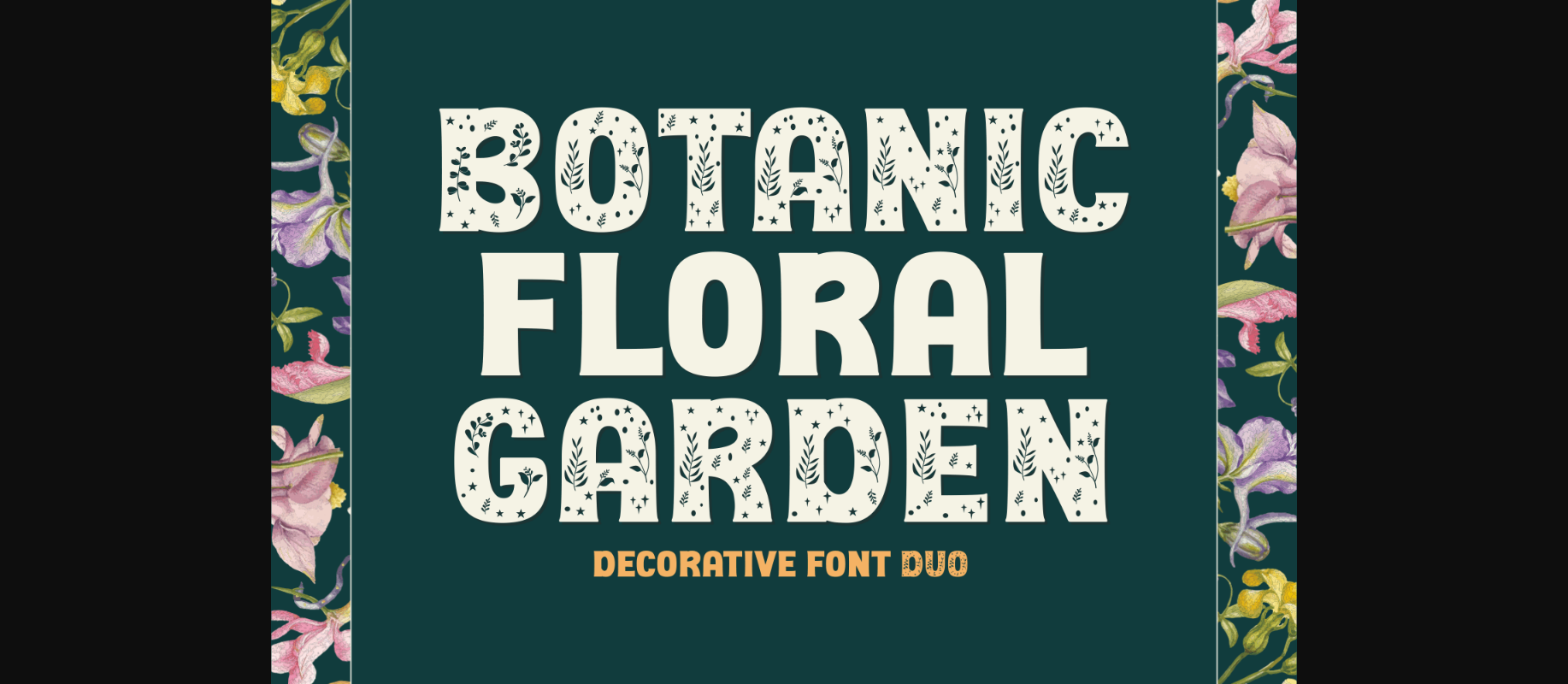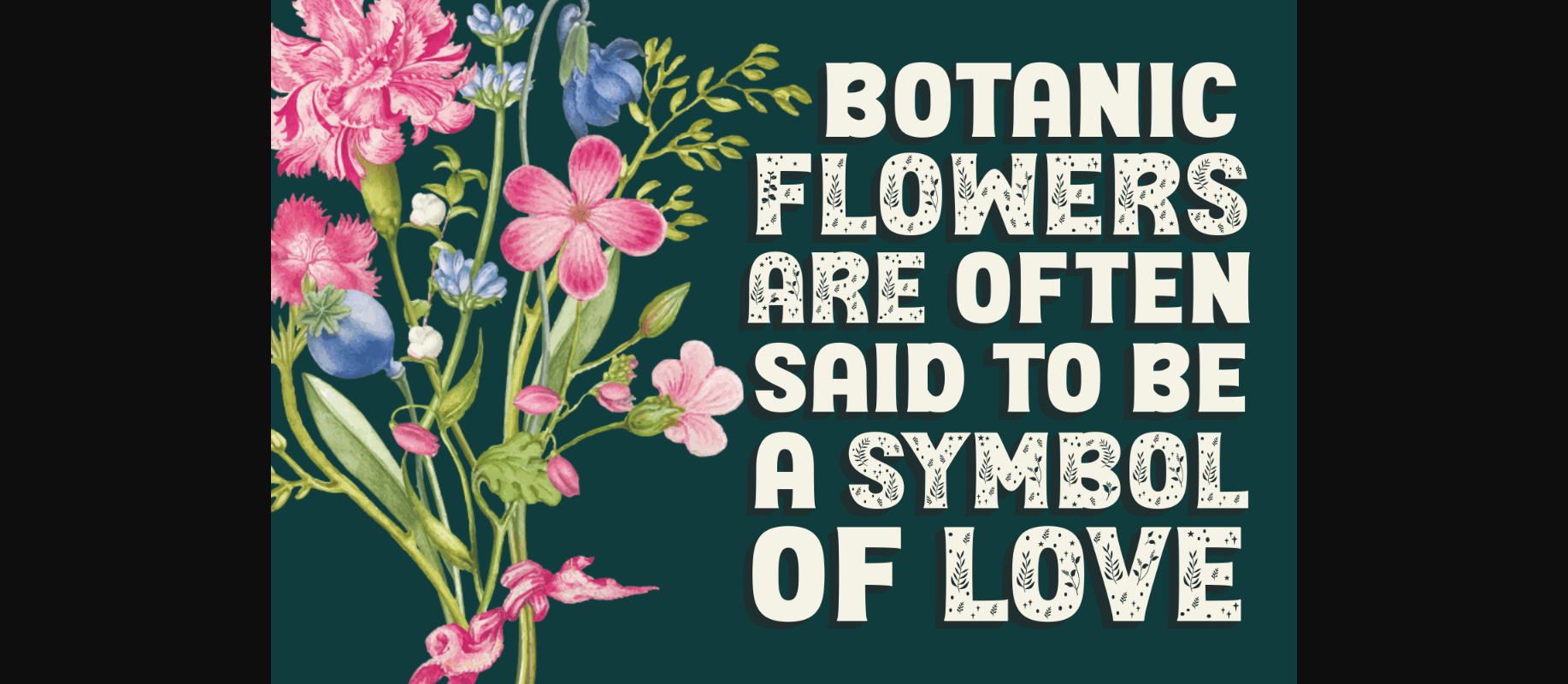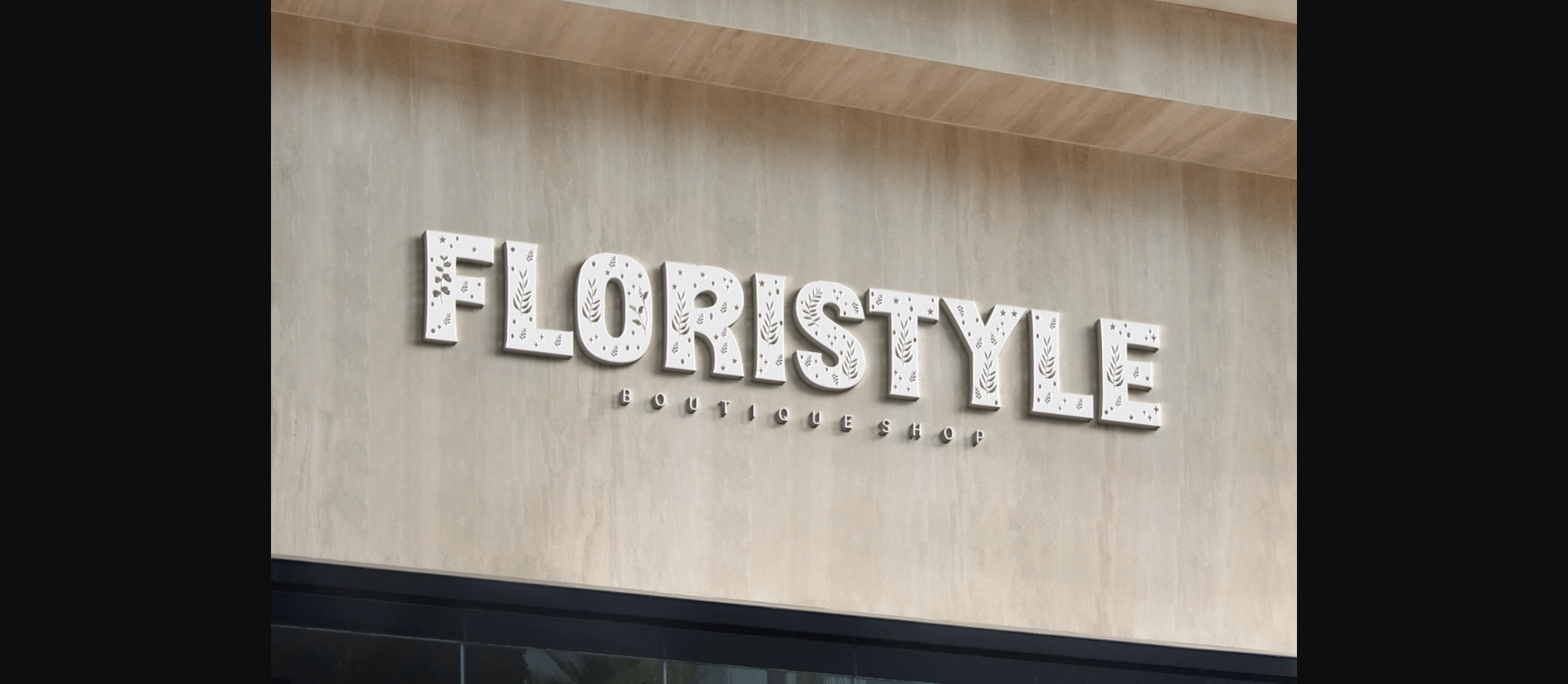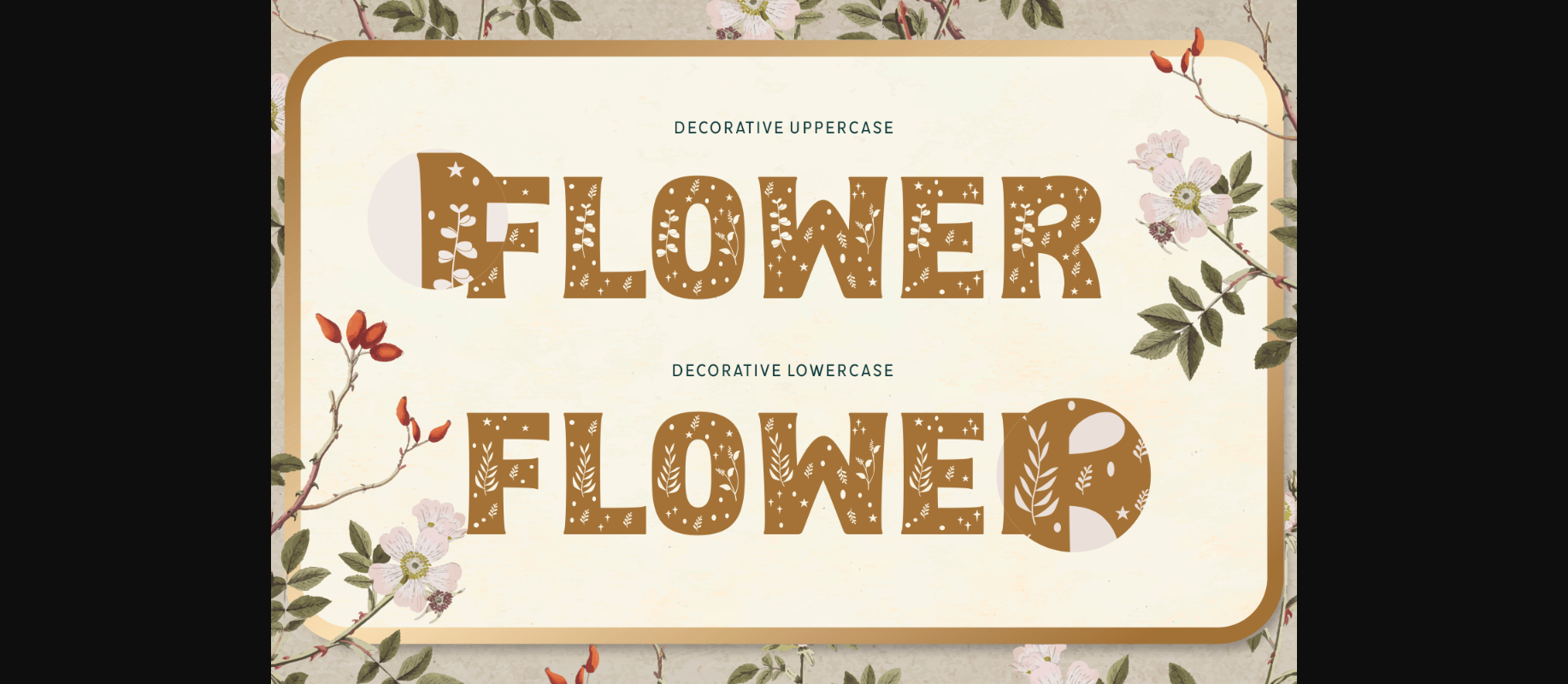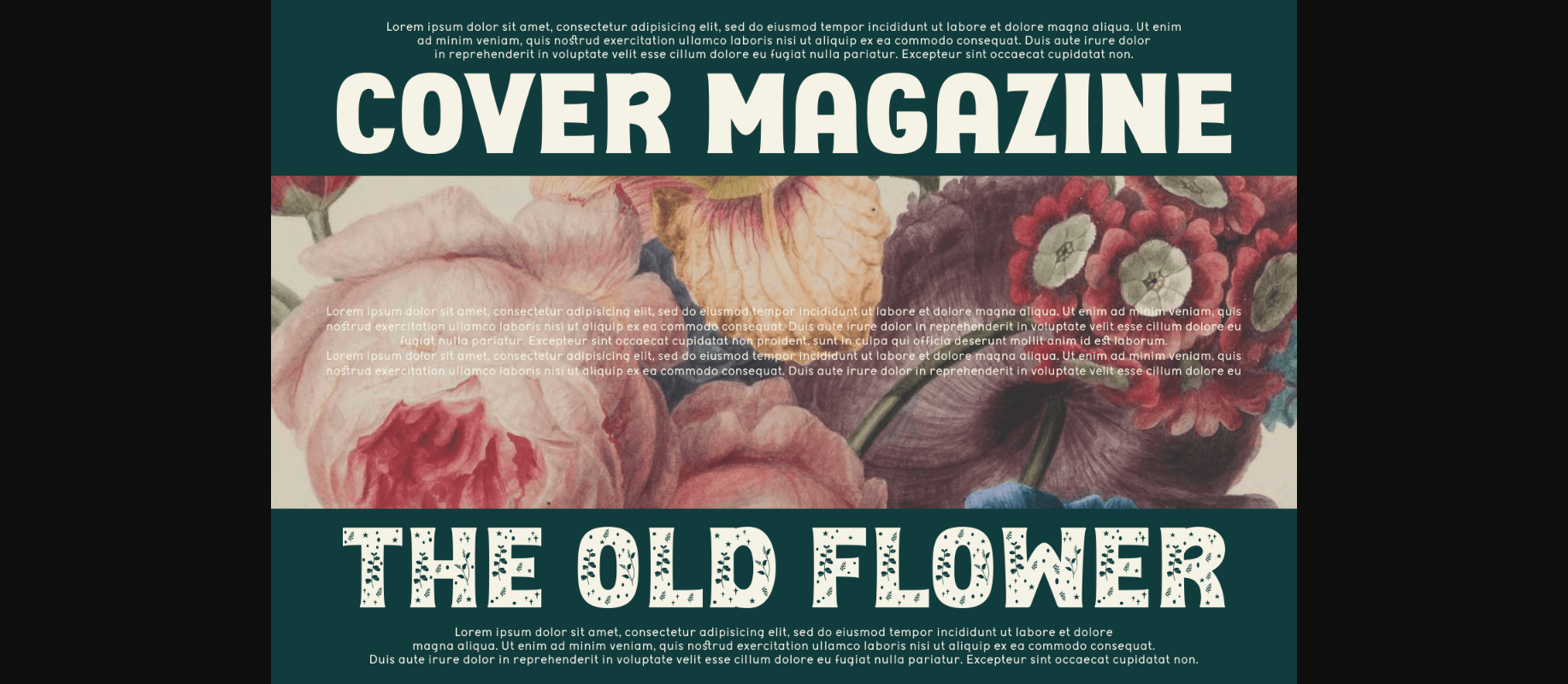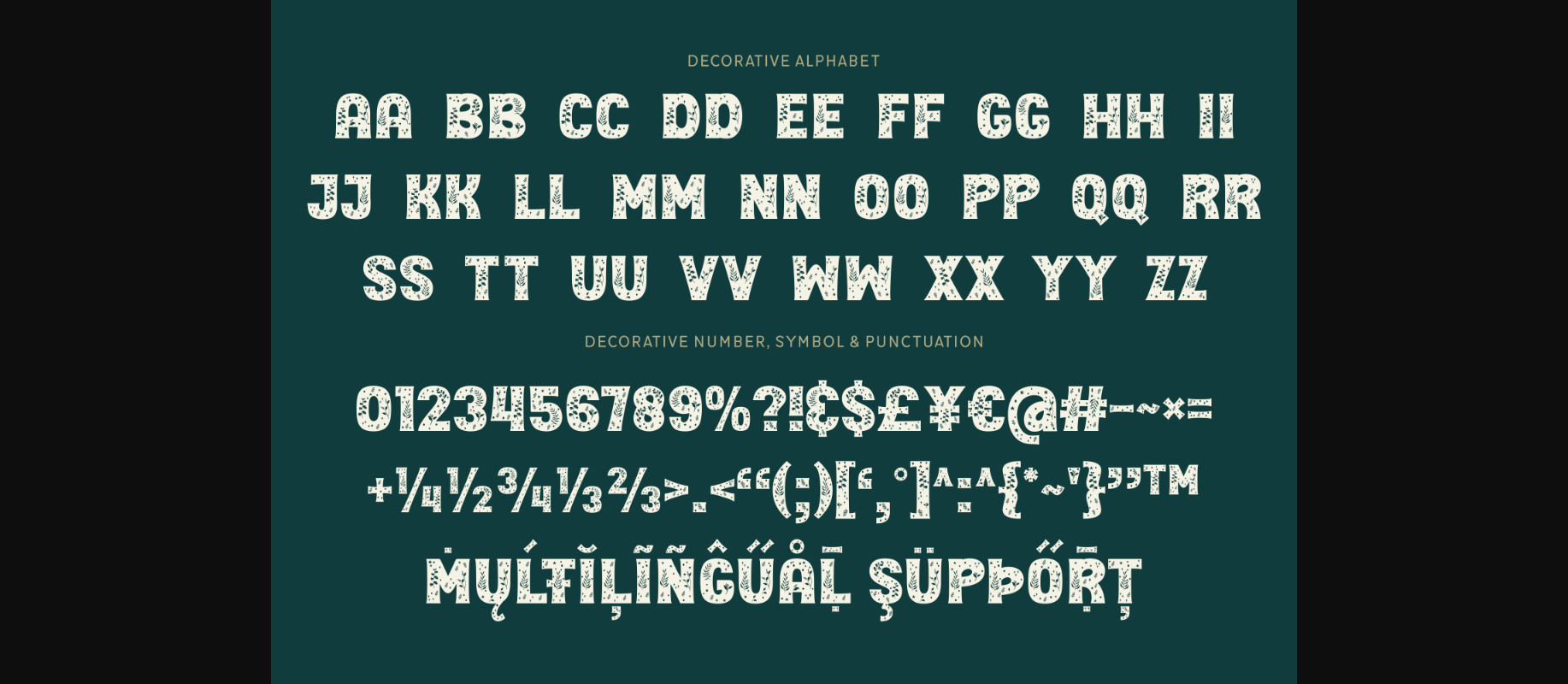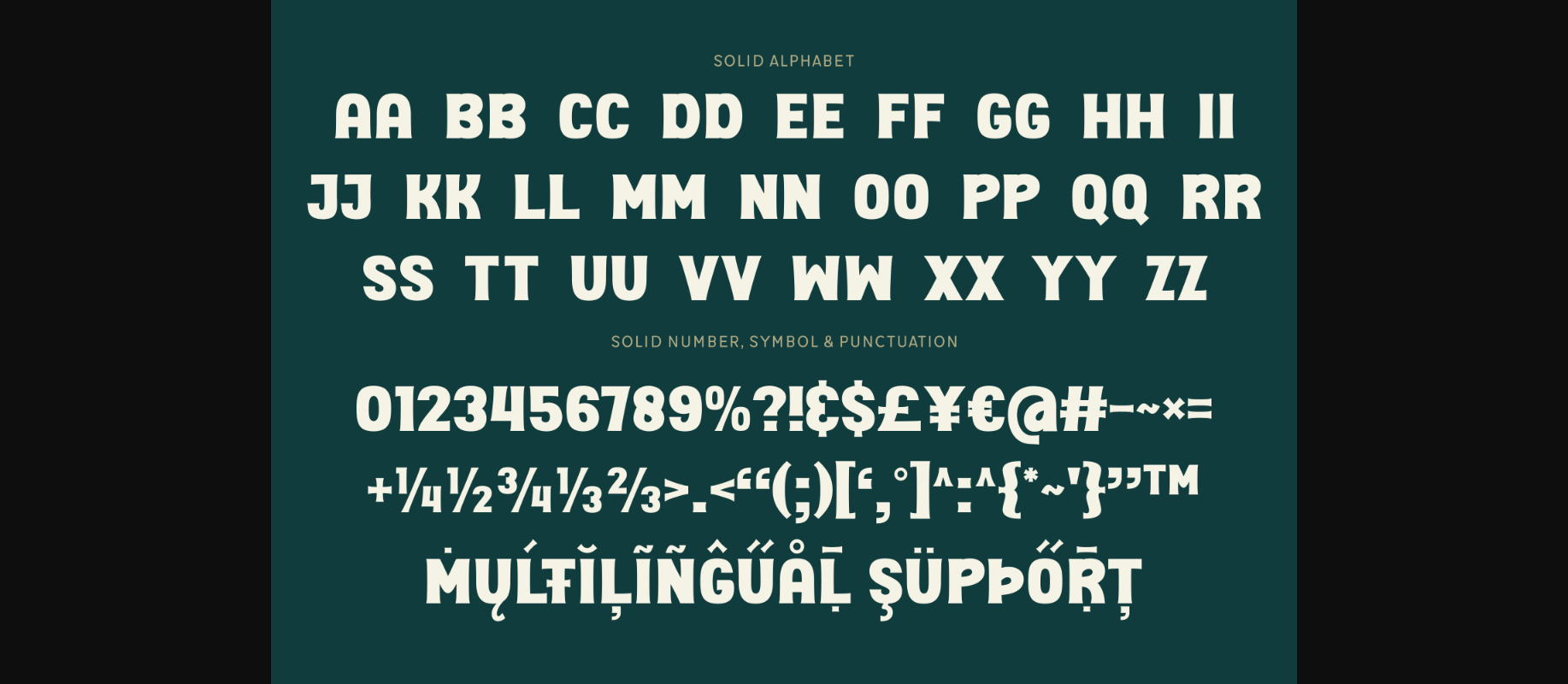
Botanic Floral Garden Font
About Botanic Floral Garden Font
Botanic Floral Garden is a beautiful decorative font duo. The delicate botanical elements make this typeface ideal for nature-themed projects. Use it for branding florist shops, digital designs, paper crafts, fabric prints, and many more. It includes two versions – solid and decorative.